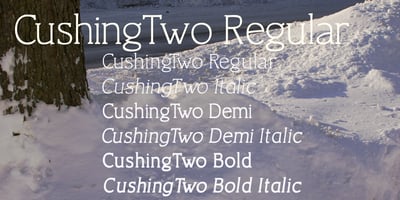
CushingTwo Font Family was designed by David Bergsland and published by Hackberry Font Foundry. CushingTwo contains 6 styles and family package options. CushingTwo is the 6-font family designed for Fontographer: Practical Font Design for Graphic Designers: Regular, Oblique, Demi, DemiOblique, Bold, and BoldOblique. The two Demi variants will be listed separately in InDesign and the Creative Suite to keep things compatible with Office and such. The inspiration was a scan of the old Cushing No. 2 font in Felici’s article on CreativePro about 100 year oldtype. It’s a fun, open, large OpenType font of 370 characters with oldstyle figures, small caps, and small cap figures. It needs polishing, but it’s good looking.